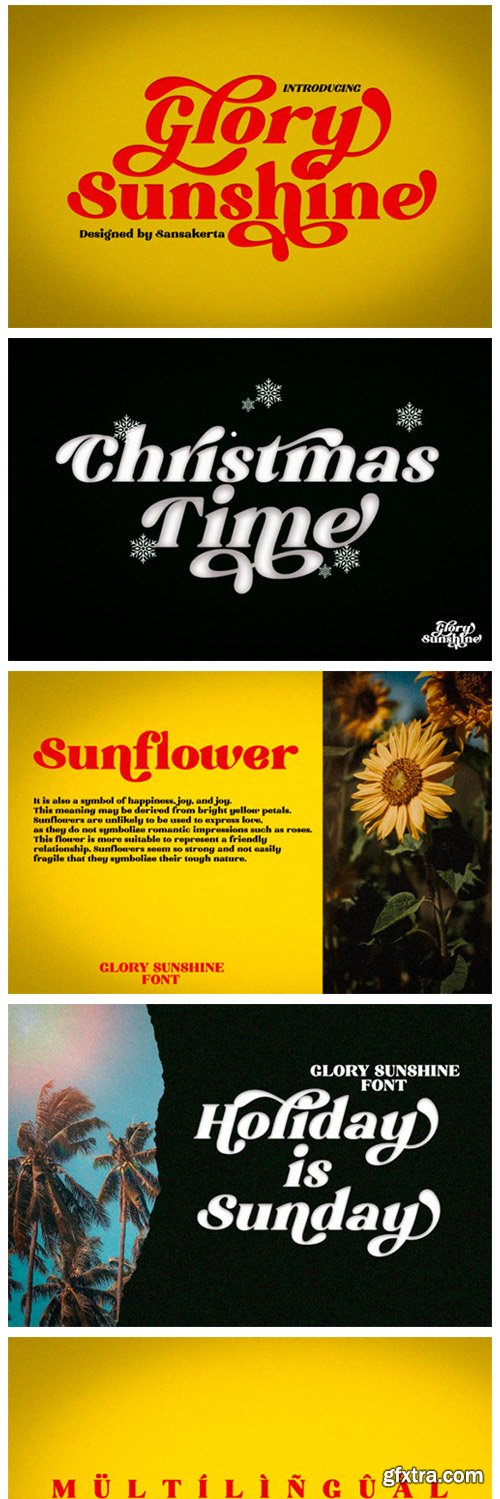
Glory Sunshine Font
Glory Sunshine is inspired by urban artworks. This amazing display font features a casual style, many stylistic alternates and great swashes. It works beautifully for personal branding, advertising and social media posts. It will look good with retro style designs!